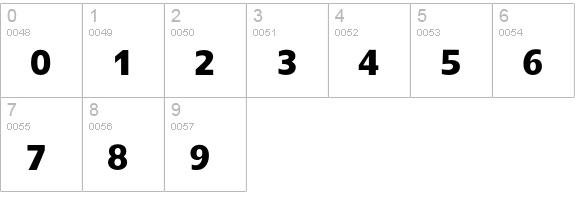
Slippy-Bold is a strong, high-contrast variant in the Slippy typeface family \xE2\x80\x94 well suited to headlines, attention-grabbing titles, and strong calls-to-action.
Slippy-Bold is a stunning display font that exudes a sense of boldness and confidence. Its sleek and modern design makes it perfect for eye-catching headlines, posters, logos, and more. This font is ideal for those who want to make a powerful statement and leave a lasting impression. With its strong and distinct letterforms, Slippy-Bold commands attention and demands to be noticed. The thick and sturdy lines give it a sense of stability and durability, making it a reliable choice for any design project. Not only does Slippy-Bold possess a striking appearance, but it also offers versatility. Its clean and legible structure ensures readability even at smaller sizes, making it suitable for both print and digital media. One of the best aspects of Slippy-Bold is that it is free to download at FontsMarket.com. This means that you can access this remarkable font without any cost, making it an incredibly valuable asset for designers, students, and creative professionals. Whether you are designing a poster for a music festival or creating a logo for a new startup, Slippy-Bold is the perfect font choice to make a bold and confident statement. Its free availability on FontsMarket.com ensures that anyone can enjoy the benefits of this exceptional font. Download Slippy-Bold today and elevate your design projects to new heights.